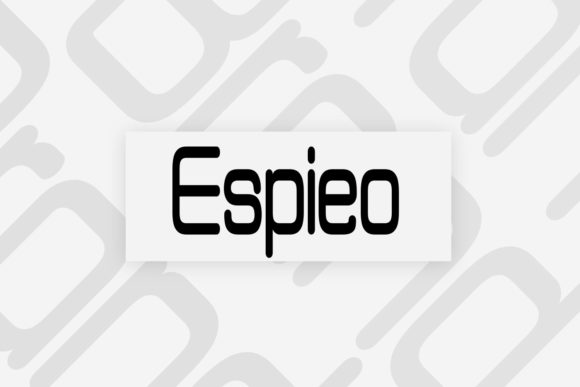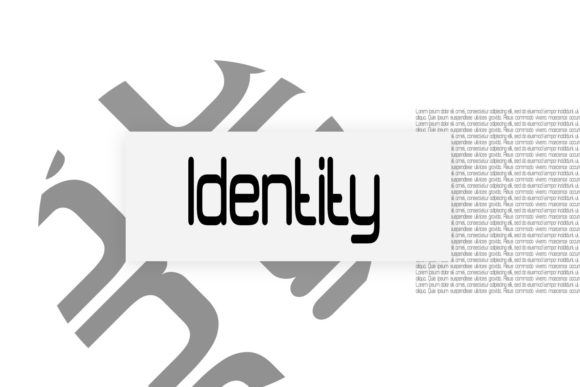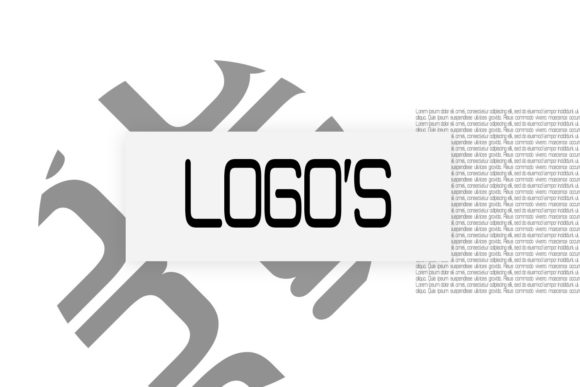
Introducing Espieo Font: Elevate Your Designs with a Touch of Minimal Elegance
In the world of design, fonts play a pivotal role in bringing ideas to life. Among the myriad of typefaces available, Espieo Font stands out as a beacon of minimalism and elegance, perfect for designers and crafters looking to infuse their projects with a sophisticated flair. Espieo is a minimal display font that would look marvelous on a variety of different projects. Combine it with your creative ideas and watch your projects come to life!
The Essence of Espieo Font
Espieo Font is characterized by its clean lines, simple shapes, and an overall minimalist aesthetic. This display font is meticulously crafted to make a statement, yet it does so with a subtlety that ensures versatility across various design applications. Whether you’re working on a branding project, a website design, a digital advertisement, or even a craft project, Espieo Font can be the perfect companion to help your creative ideas shine.
Why Choose Espieo Font?
There are several reasons why designers and crafters might find Espieo Font to be an indispensable part of their toolkit:
- Versatility: Despite its minimalist nature, Espieo Font boasts a remarkable versatility that allows it to be used across a wide range of projects. From digital media to print, and from luxury brands to personal crafts, Espieo can adapt and elevate any design.
- Elegance: The font exudes a quiet elegance that can add a touch of sophistication to any project. Its simple yet distinctive style ensures that your designs stand out without appearing overly flashy or distracting.
- Legibility: One of the key features of Espieo Font is its excellent legibility. Even at smaller sizes, it remains clear and easy to read, making it suitable for use in a variety of contexts, from headings to body text.
- Creativity: Perhaps most importantly, Espieo Font serves as a fantastic foundation for creativity. Its minimalist design invites experimentation and can be easily paired with a wide range of other fonts and design elements to create something truly unique.
Using Espieo Font in Your Projects
So, how can you incorporate Espieo Font into your designs? The possibilities are endless:
- Branding and Logos: Use Espieo Font to create a sleek and modern logo or to develop a comprehensive brand identity that exudes professionalism and elegance.
- Web Design: Elevate your website with Espieo Font, using it for headings, titles, or even as a part of your site’s overall typography to create a cohesive and engaging user experience.
- Digital Marketing: Make your digital advertisements stand out with Espieo Font. Its minimalist charm can help draw attention and convey your message with clarity and style.
- Crafting and DIY Projects: Even if you’re working on personal projects or crafting items, Espieo Font can add a professional touch to your work, from labels and signs to handmade cards and art pieces.
Espieo Font is more than just a typeface; it’s a design companion that can help bring your creative visions to life. Its minimalist elegance, versatility, and legibility make it an excellent choice for a wide range of projects. Whether you’re a professional designer or a crafty DIY enthusiast, Espieo Font offers the perfect blend of style and functionality to elevate your work. So why wait? Explore the possibilities with Espieo Font today and discover how it can transform your designs with its unique minimalist charm.